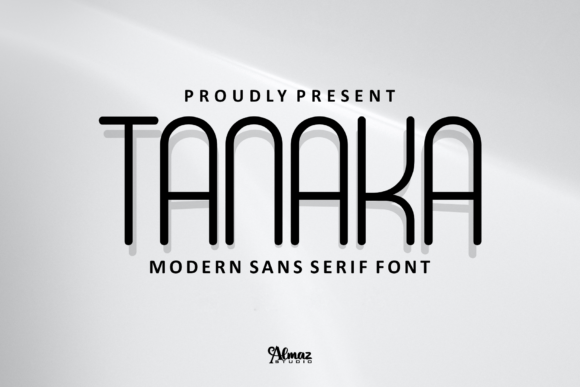
Introducing Tanaka Font: The Ultimate Sans Serif for Powerful Visual Expression
Unleash the creative prowess within you with Tanaka Font, a remarkable sans serif font that redefines visual communication. This typographic masterpiece, meticulously crafted by almazstd24, is a symphony of simplicity, elegance, and boundless possibilities. With its narrow-lettered design and minimalist aesthetic, Tanaka Font exudes a contemporary charm, perfect for a myriad of design projects.
Step into a world of endless opportunities with Tanaka Font. Create awe-inspiring posters that command attention, leaving an indelible mark on your audience. Design captivating web graphics that dance with dynamism, captivating visitors with their effortless beauty. Bring life to game graphics, immersing players in an unforgettable experience. Unleash your creativity on t-shirts, transforming them into wearable works of art. Craft videos that resonate with emotion, where every frame tells a story. Design signs that beckon with clarity and elegance, drawing eyes and hearts alike. Create eBooks that captivate readers, immersing them in a world of knowledge and imagination. Forge logos that stand tall and proud, symbolizing strength and distinction.
Tanaka Font is more than just a font; it's a versatile tool that empowers your designs with endless possibilities. Its condensed design allows for space economizing, making it perfect for headlines and short-length text blocks. Its display features make it a captivating choice for creating visually stunning designs that demand attention.
Elevate your designs to new heights with Tanaka Font. Its breathtaking monospace design adds a touch of sophistication and uniqueness to any project, making it an incredible asset to your font library. With its ability to elevate any creation, Tanaka Font is the perfect choice for designers seeking to make a lasting impression.
Don't let your designs languish in mediocrity. Embrace the power of Tanaka Font and watch your creations transform into masterpieces that captivate and inspire. Its minimalist and modern approach ensures that your designs will always remain relevant and timeless, standing the test of time with grace.